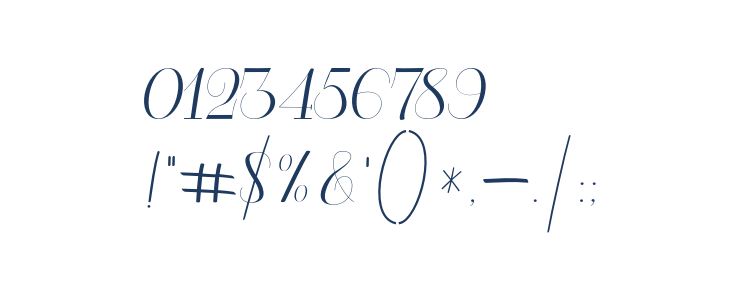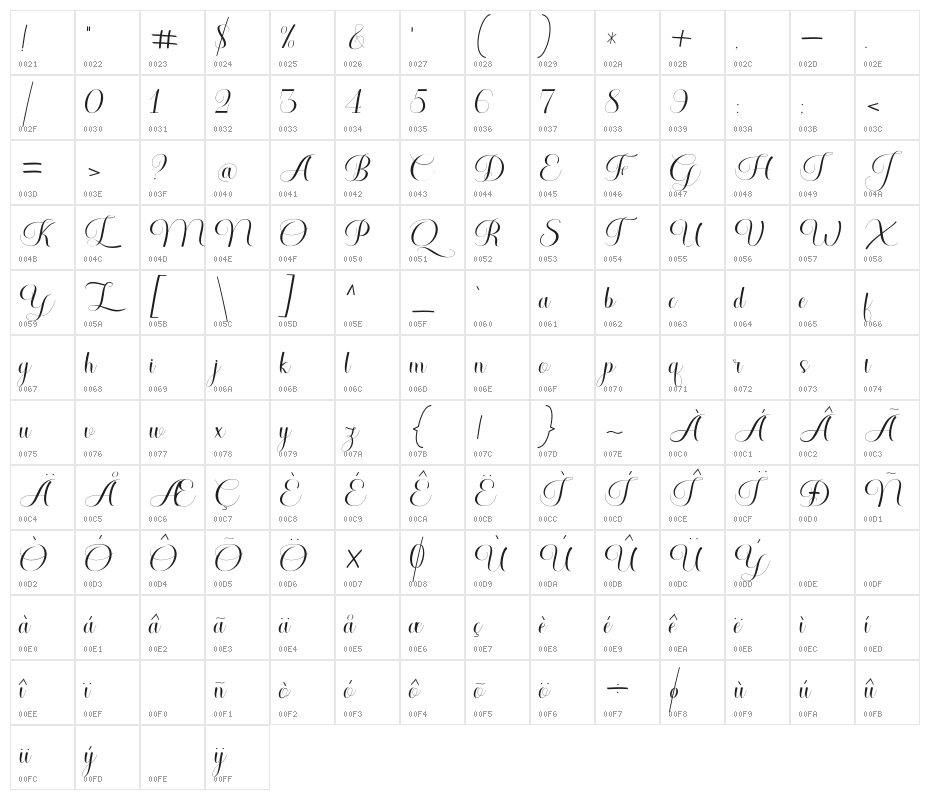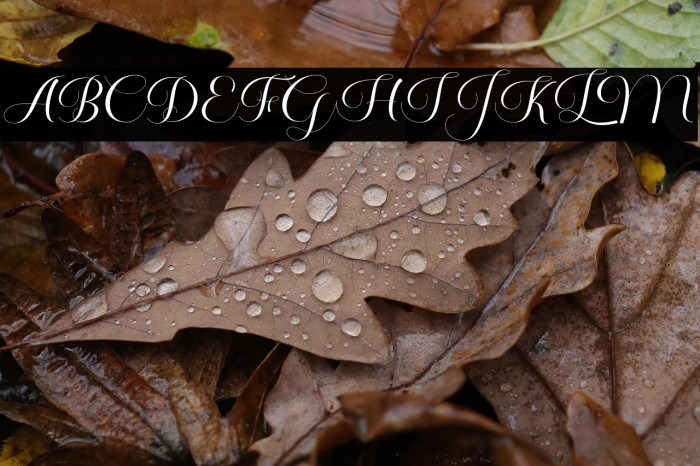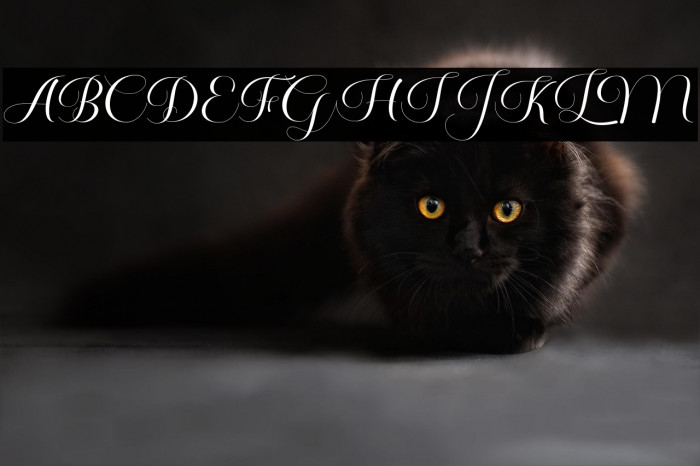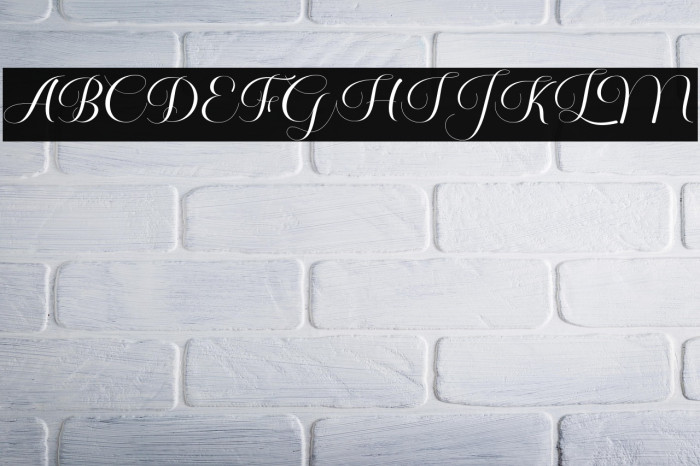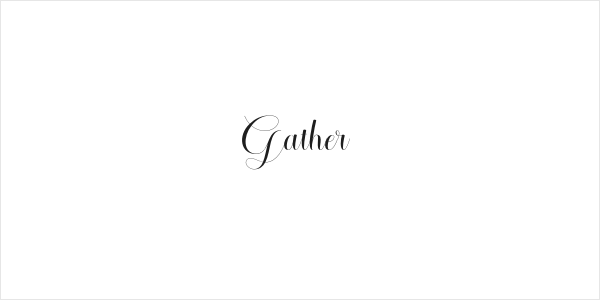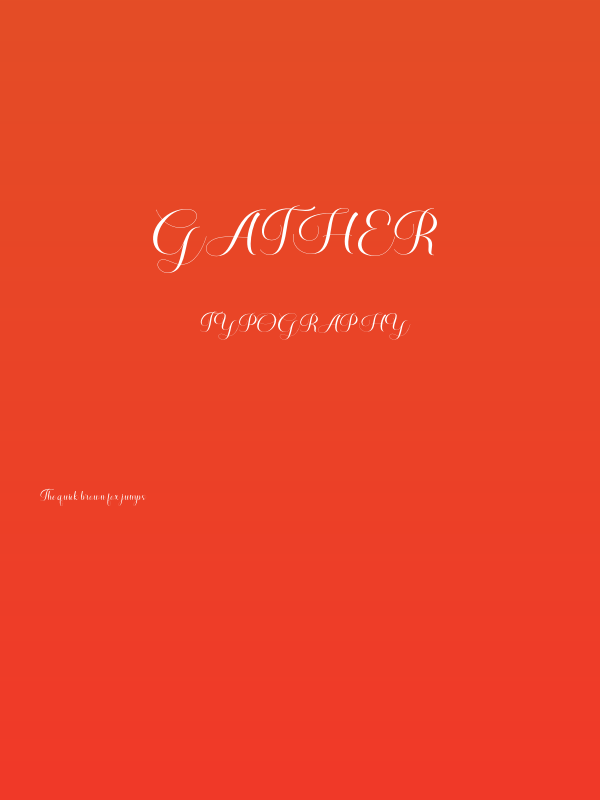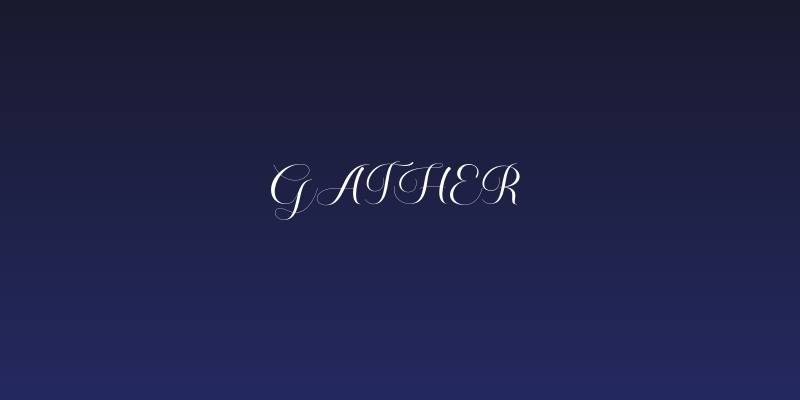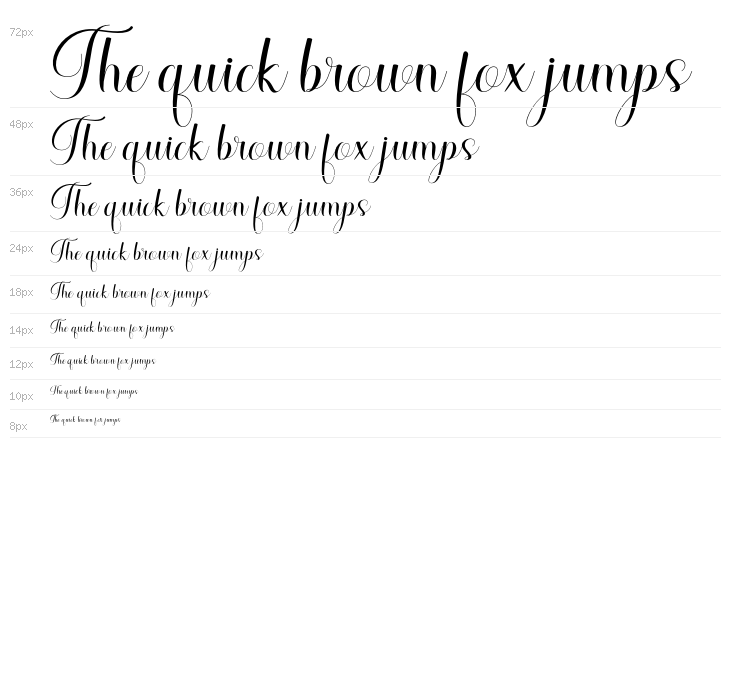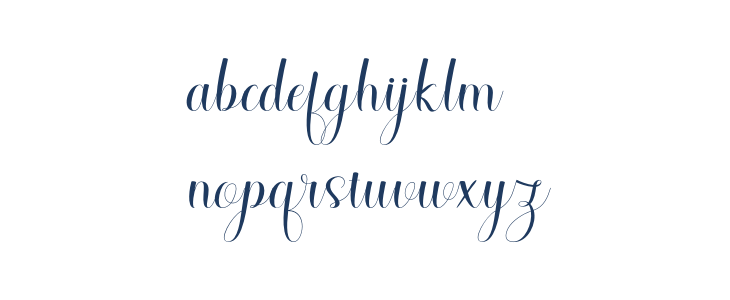
Gather Font
Gather Description
This elegant script font features a flowing, cursive style with graceful loops and swashes. The uppercase letters are particularly ornate, with extended flourishes that add a touch of sophistication. The lowercase letters maintain a consistent slant, offering a harmonious balance between readability and decorative flair. The numerals are stylishly curved, complementing the overall aesthetic. Special characters are thoughtfully designed, enhancing the font's versatility. This font is ideal for projects that require a touch of elegance and refinement.
CategoriesScript
Overall StyleElegant
Use CaseLogos, Invitations, Decorative text
Proposed ProjectsWedding invitations, luxury branding, elegant stationery, and decorative signage.